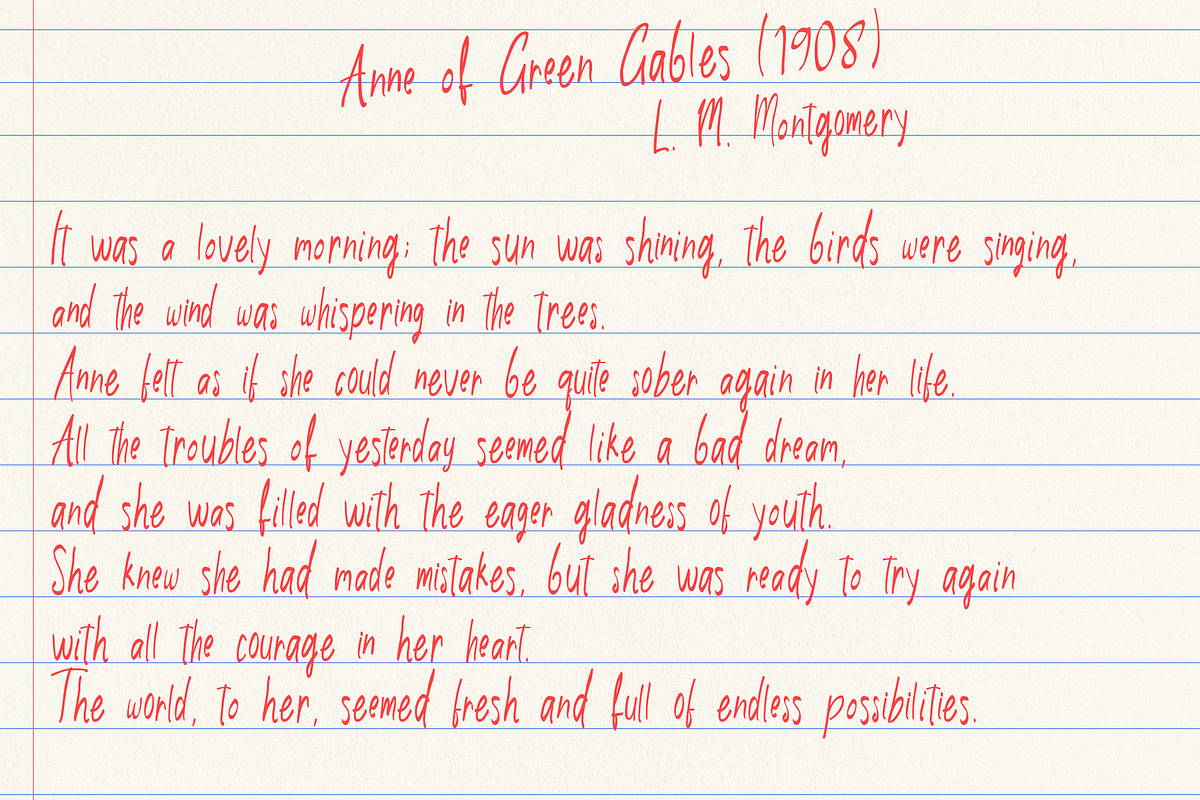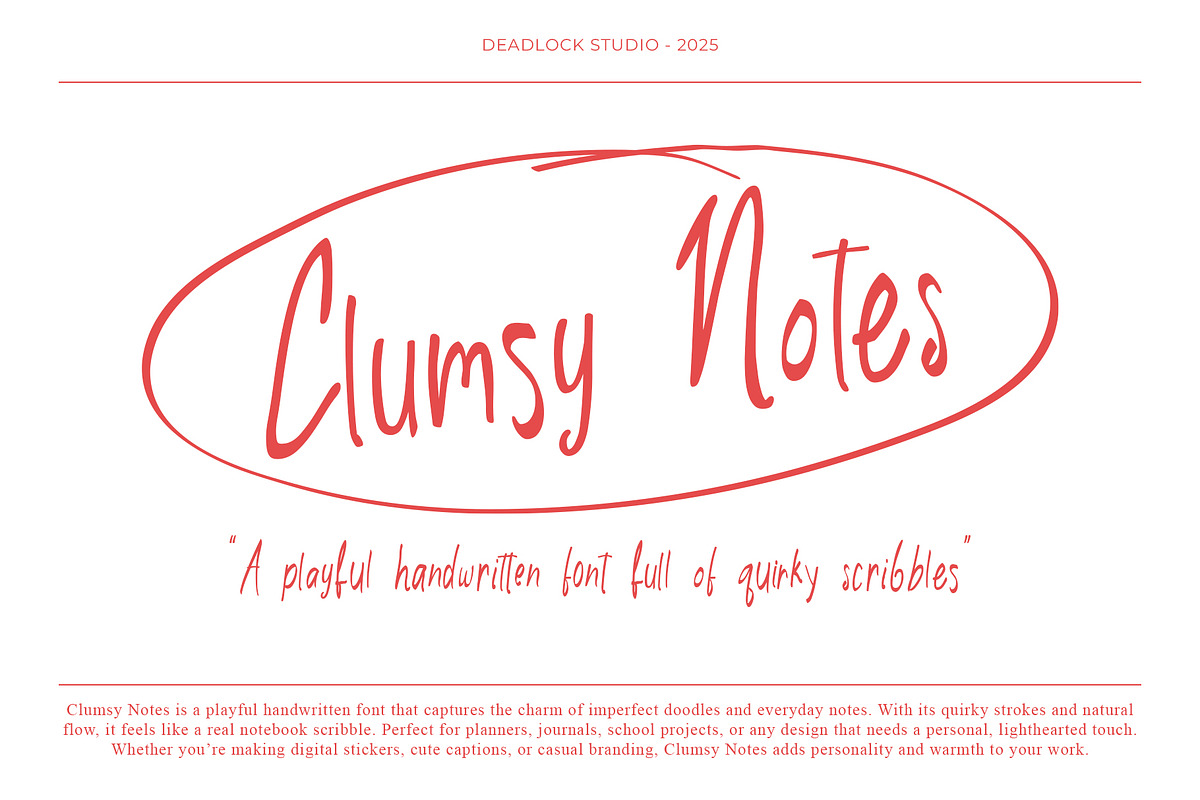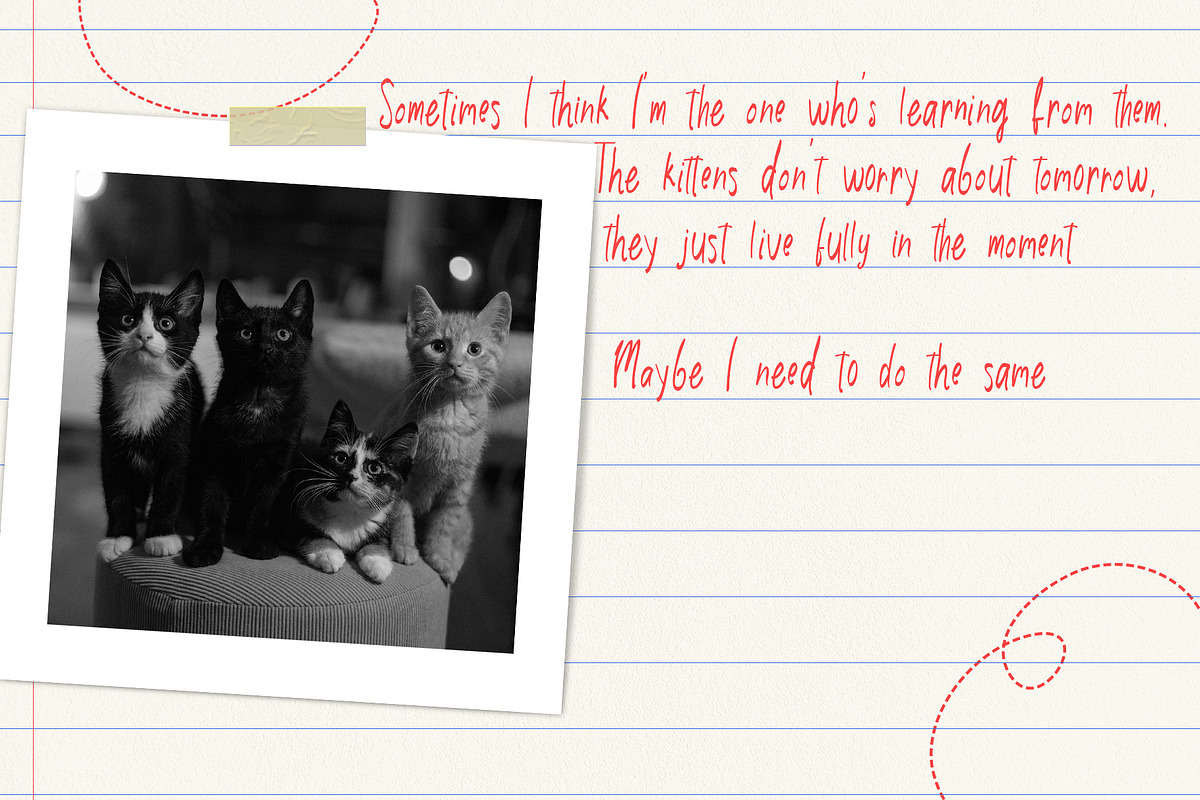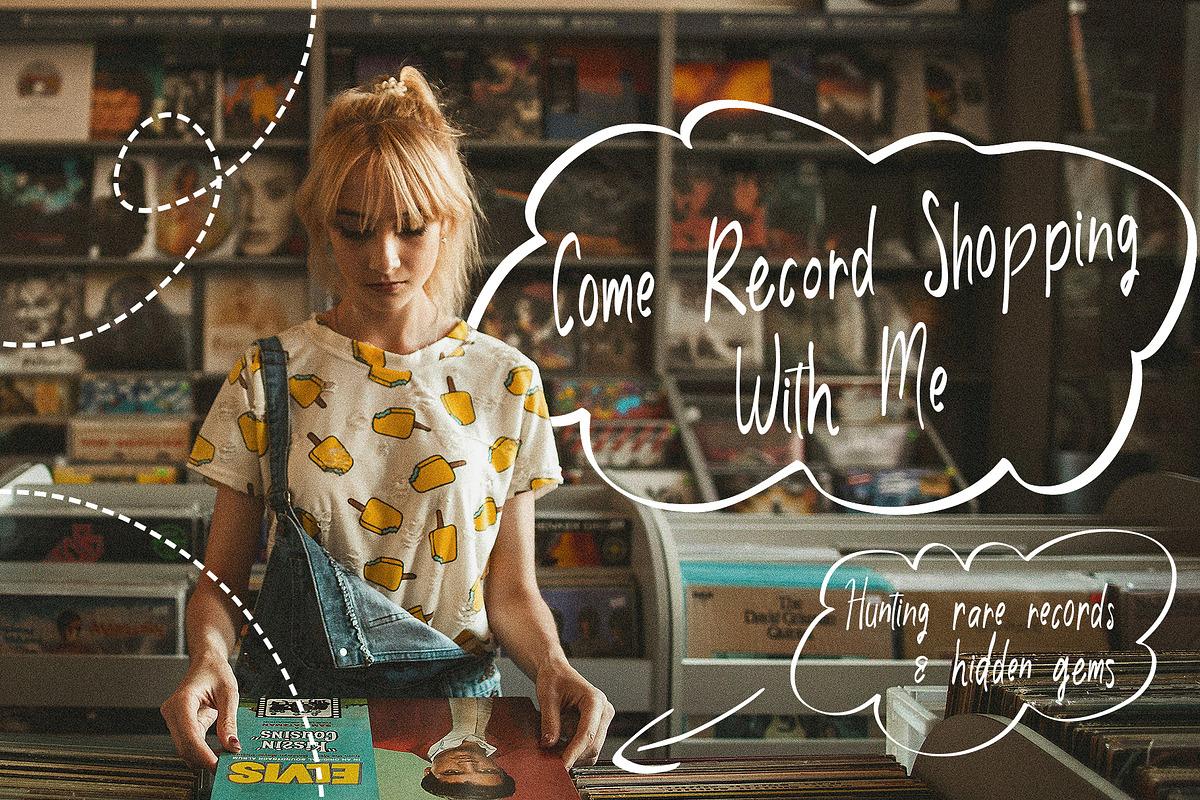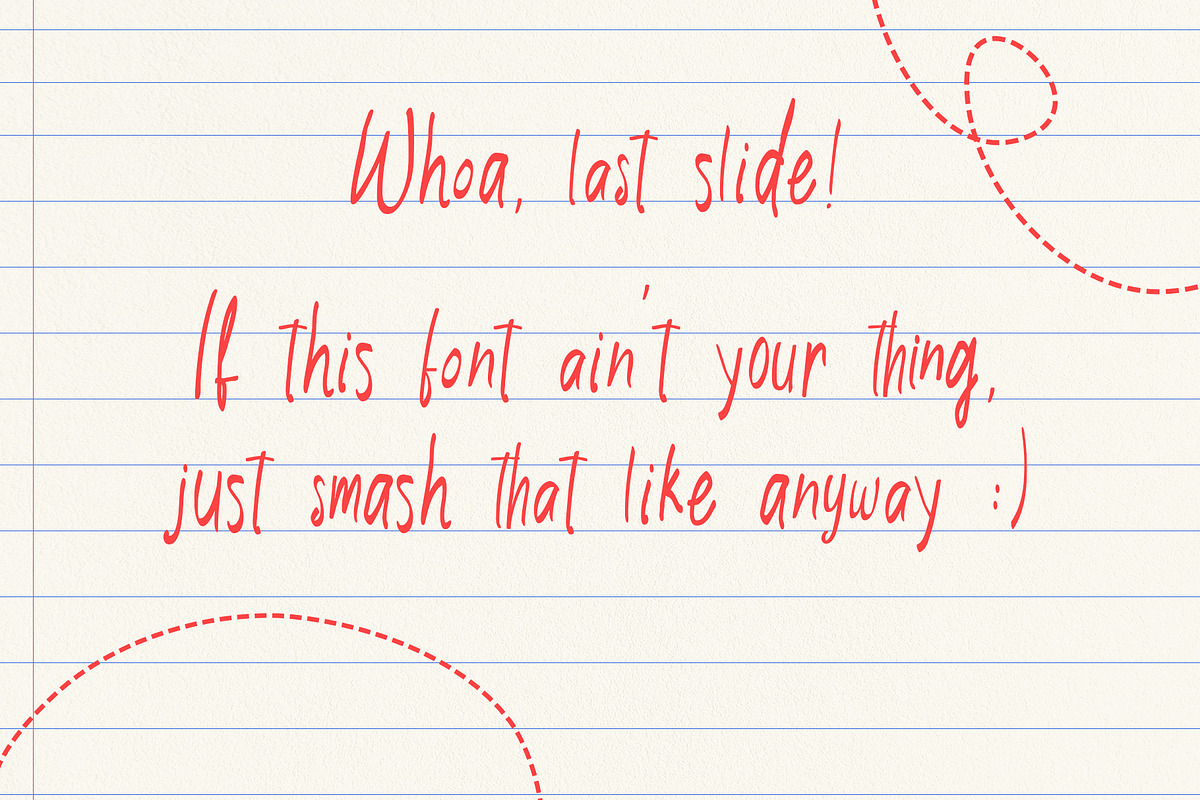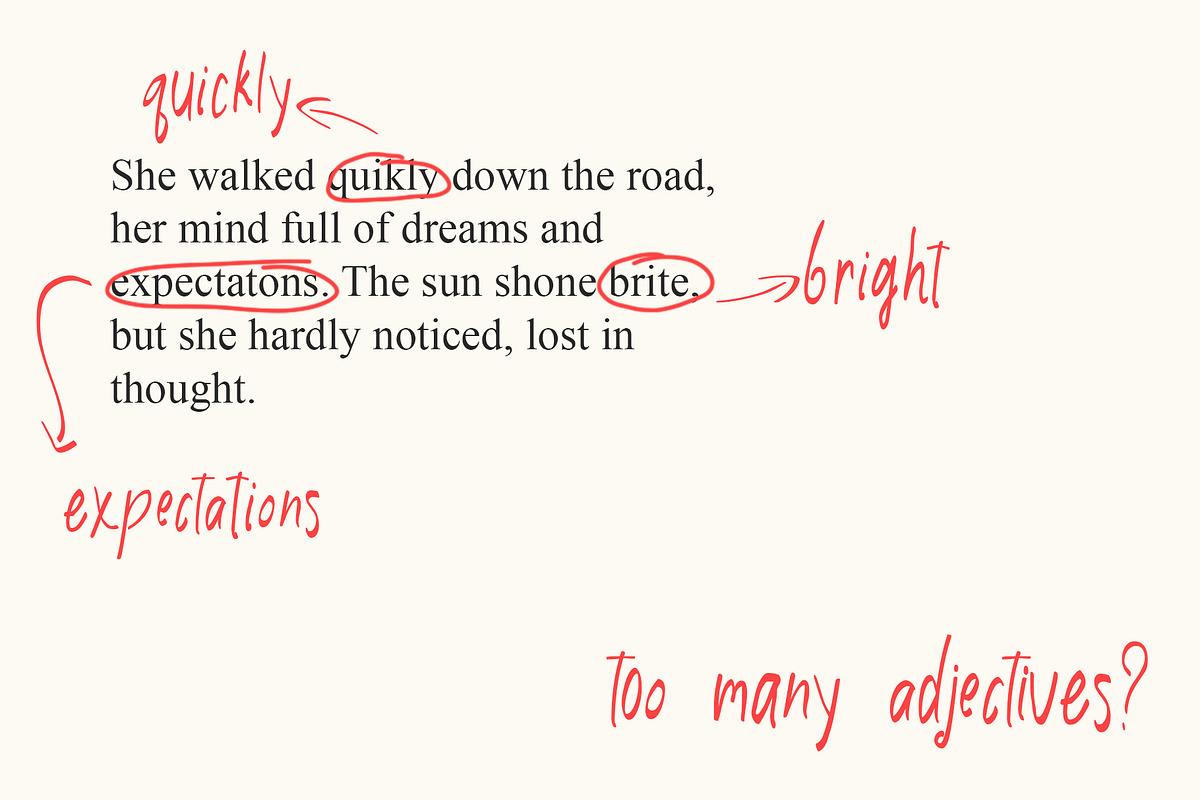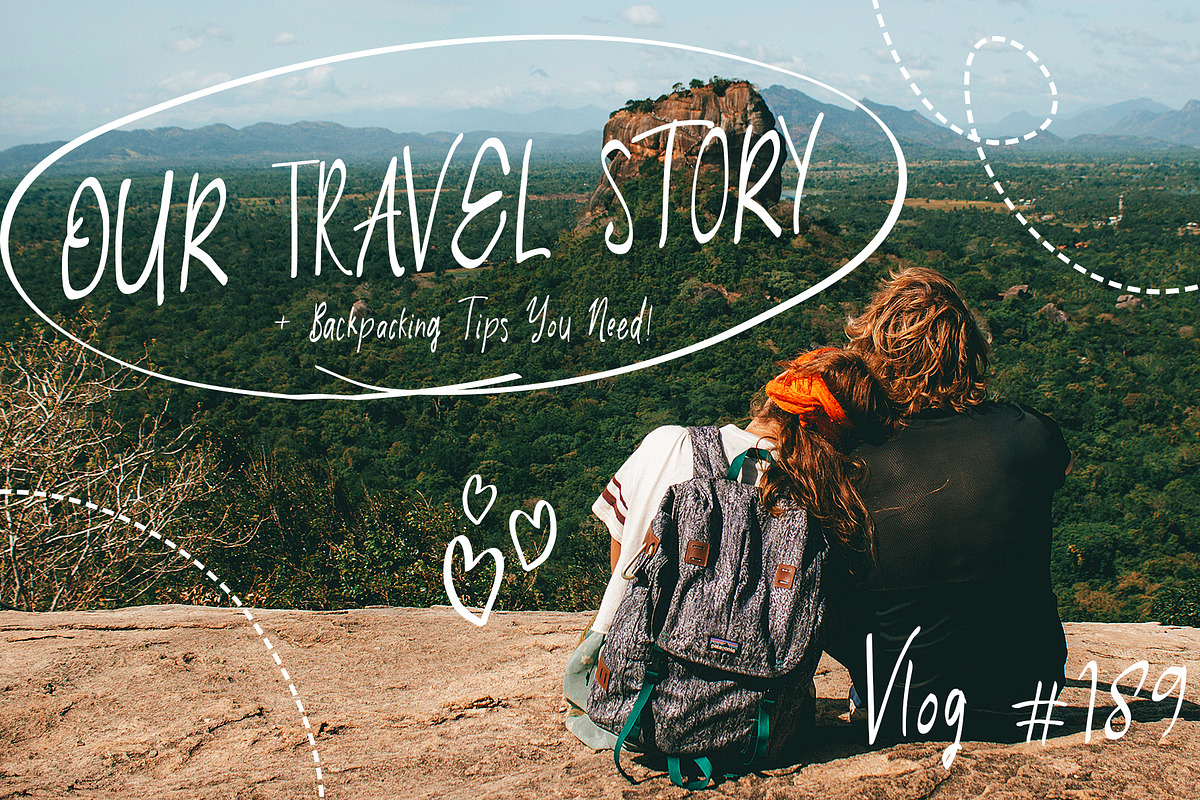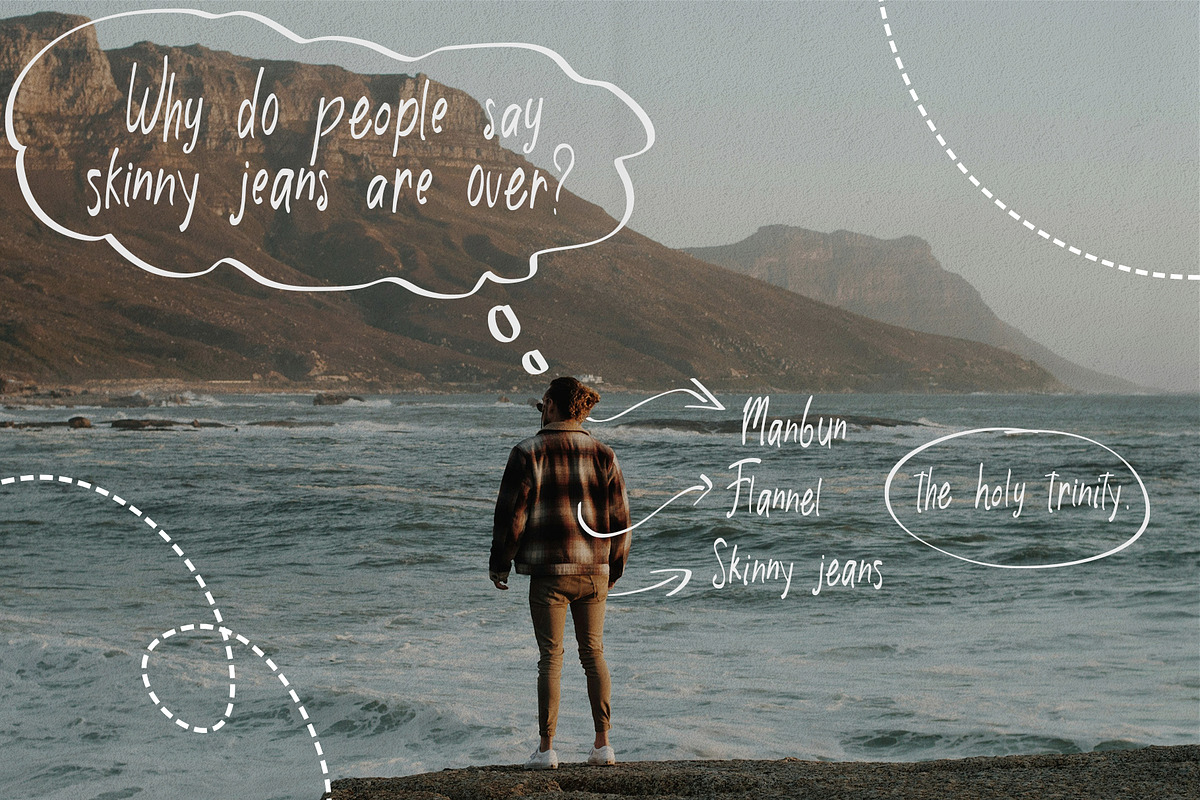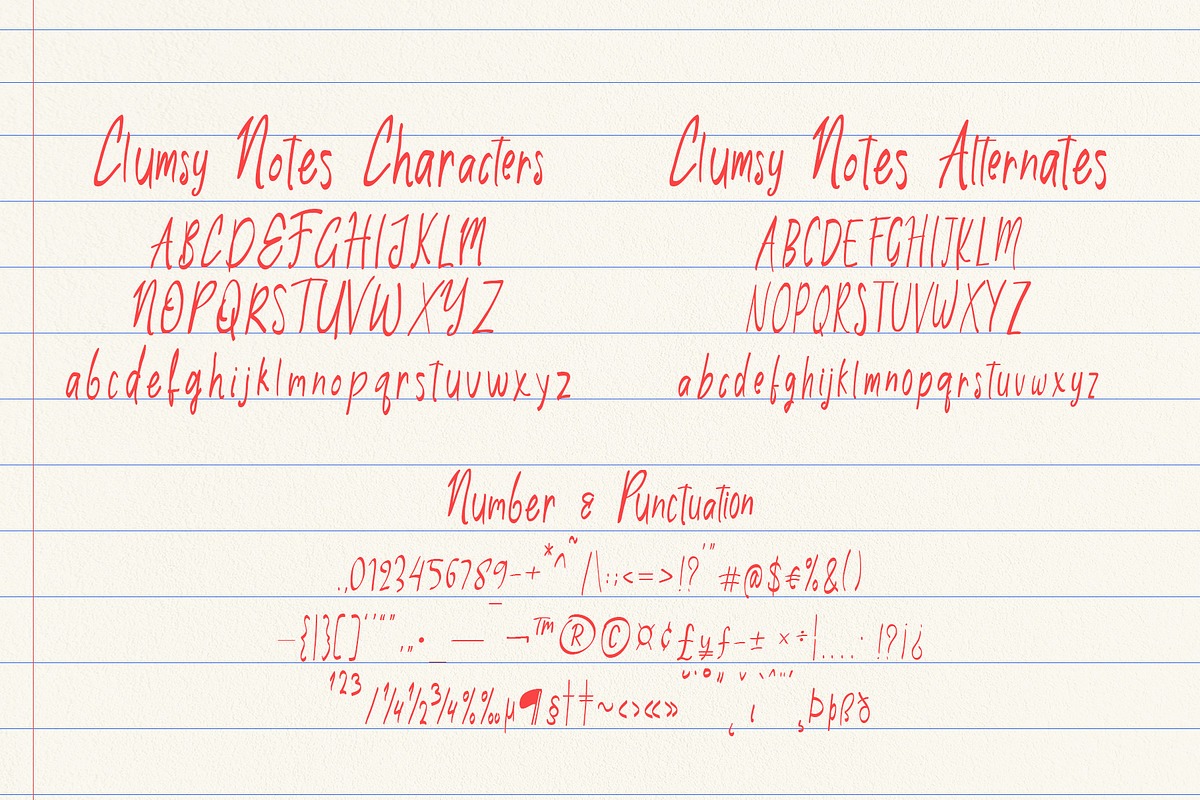
Clumsy Notes
Clumsy Notes is a playful handwritten font that captures the charm of imperfect doodles and everyday notes. With its quirky strokes and natural flow, it feels like a real notebook scribble.
Perfect for planners, journals, school projects, or any design that needs a personal, lighthearted touch. Whether you’re making digital stickers, cute captions, or casual branding, Clumsy Notes adds personality and warmth to your work.
- Stylistic Set 01 (SS01) for A–Z and a–z for extra variation